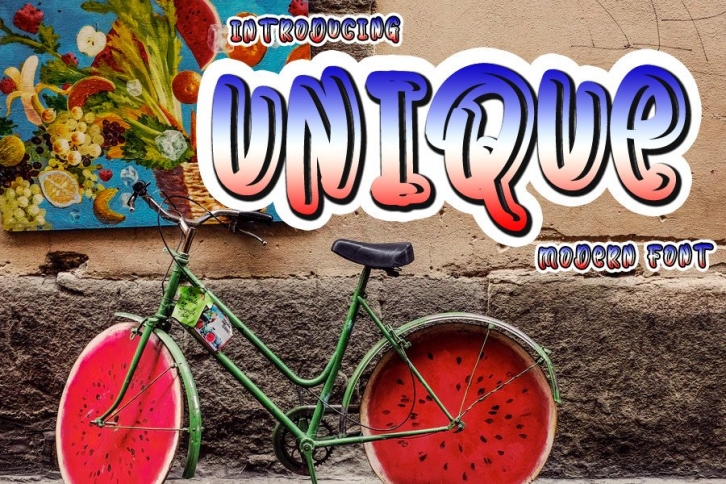
Unique is a cute and bubbly display font. It embodies playfulness and authenticity and is the perfect choice for any children activity or school project.